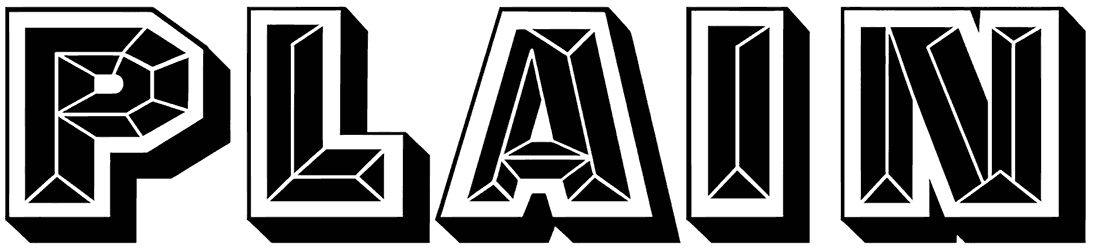
Plain Font
Sometimes using a diamond font like Plain in designing graphic content such as posters, web pages, headlines, flyers, or brochures would be a brilliant idea and insanely increase the efficiency of your work. Despite the lack of lowercase letters, numbers, and punctuation, due to its magical look, it can add a sense of modernity, drama, art, or innovation to your artwork.